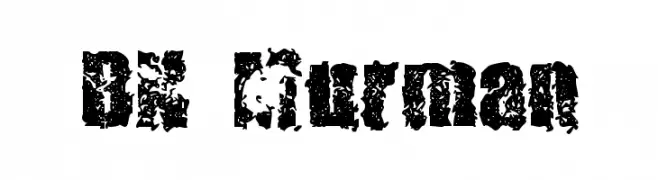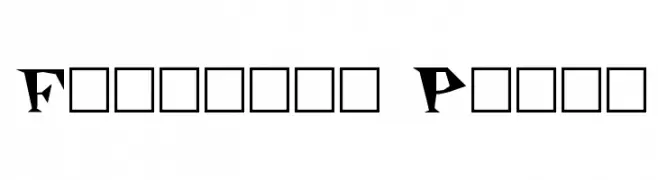
A bold stencil font with geometric shapes and an industrial, urban style.
A bold, graffiti-inspired font with sharp, angular lines and dynamic strokes.
( Fonts by Ben Nathan )
A bold, distressed font with a rugged, textured appearance.
( Fonts by Marty Bee - www.martybee.com )
A bold, angular font with sharp, jagged edges, ideal for dynamic and modern designs.
A bold, abstract font with a graffiti-like, hand-drawn appearance.